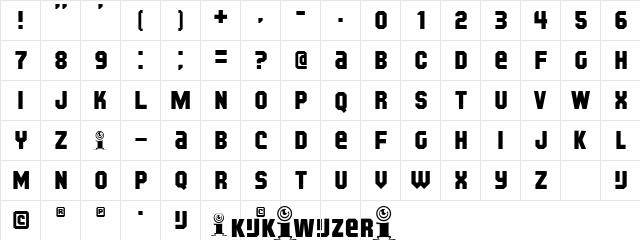
Kijkwijzer Bold
Design Context for Kijkwijzer Typeface
Kijkwijzer takes a measured approach to typography — its balanced proportions and neutral character make it a reliable workhorse for both digital and print work. Its bold stroke weight gives it real presence on the page.